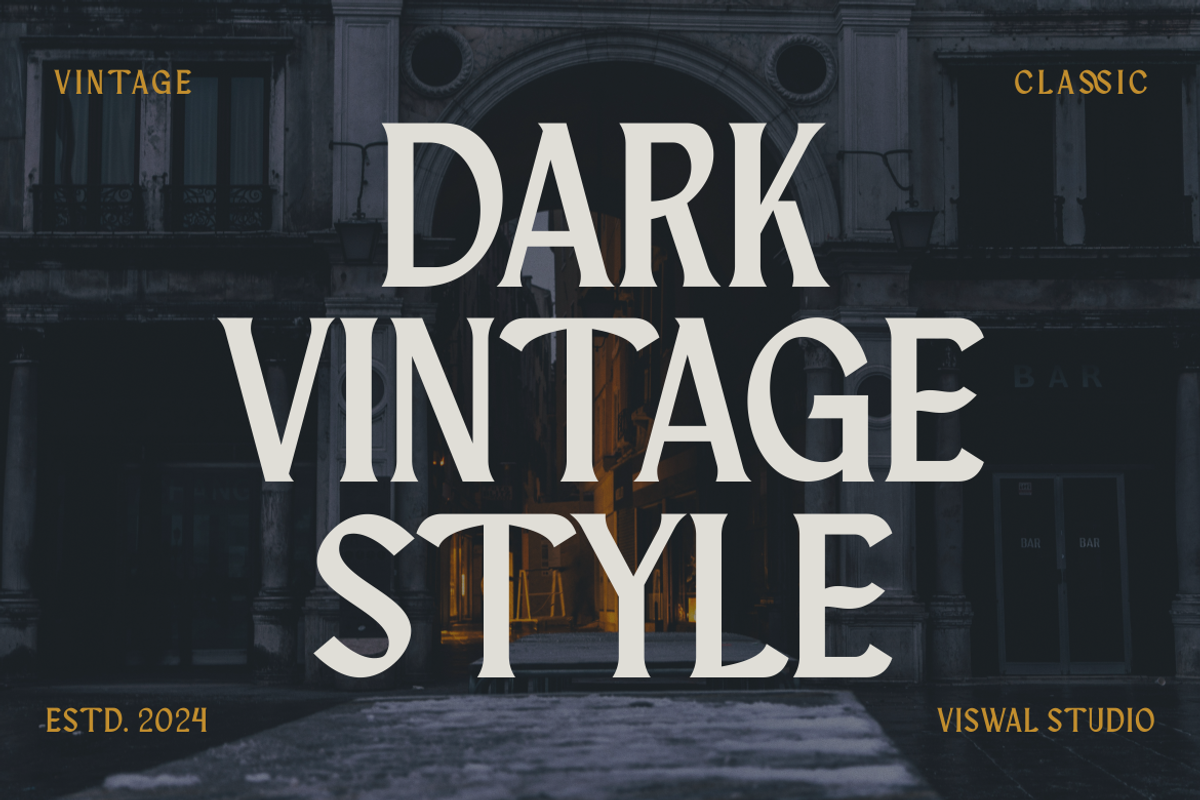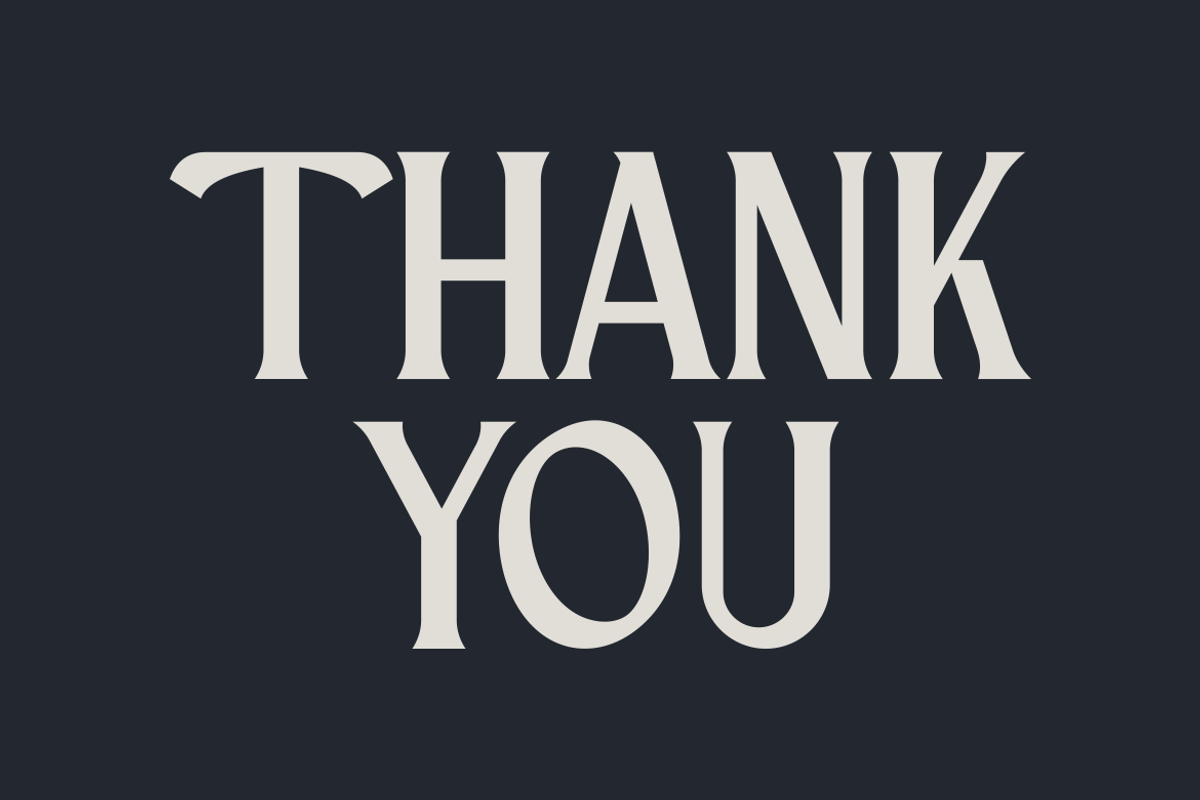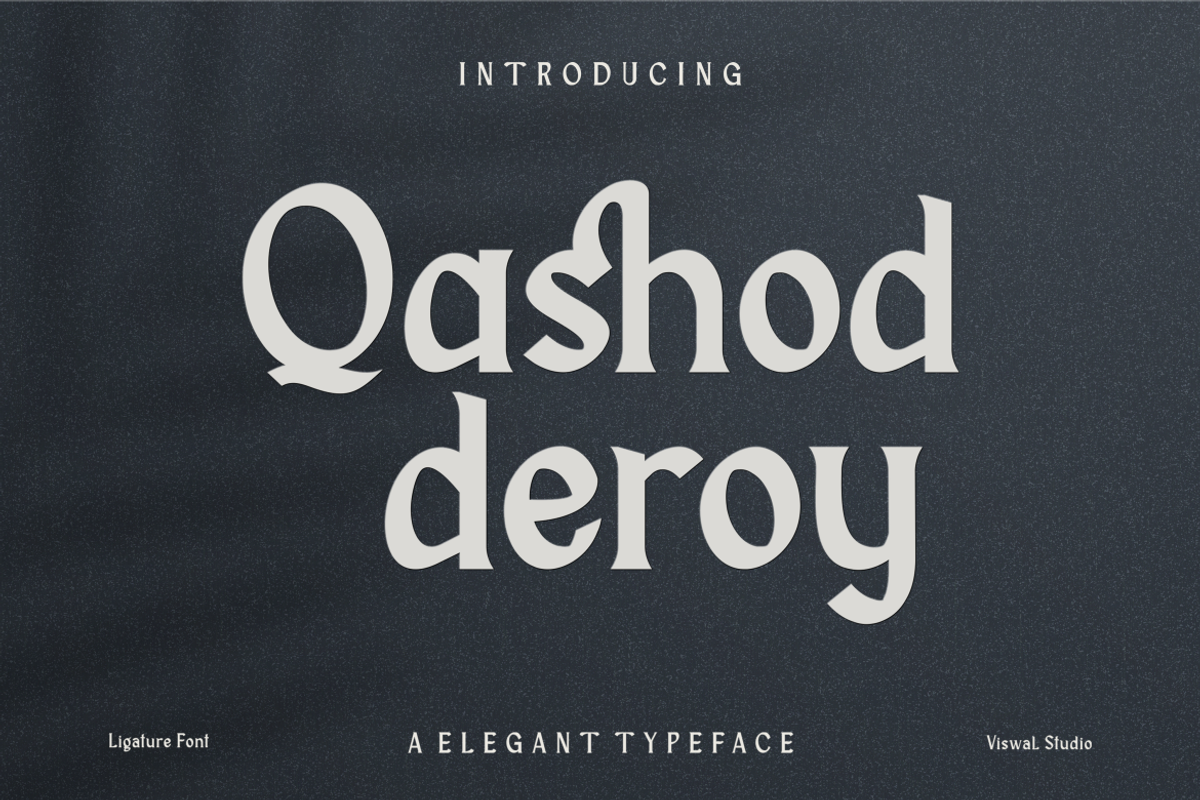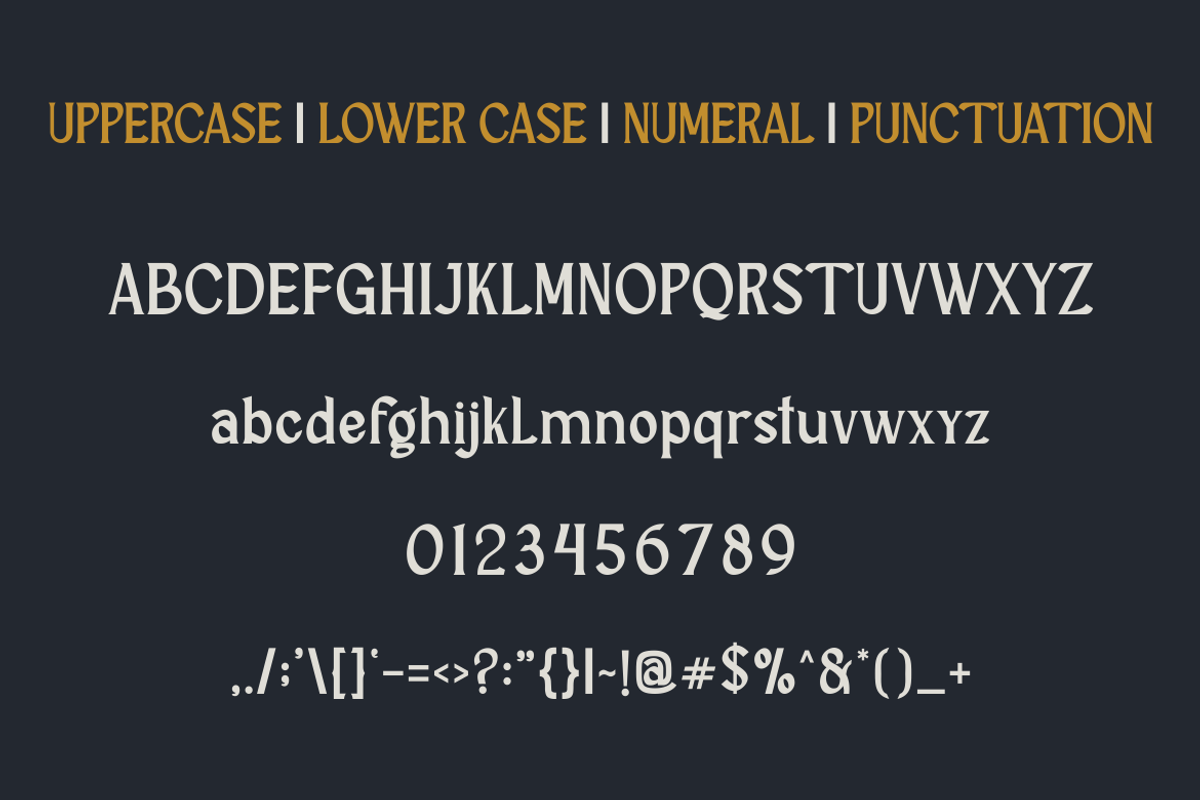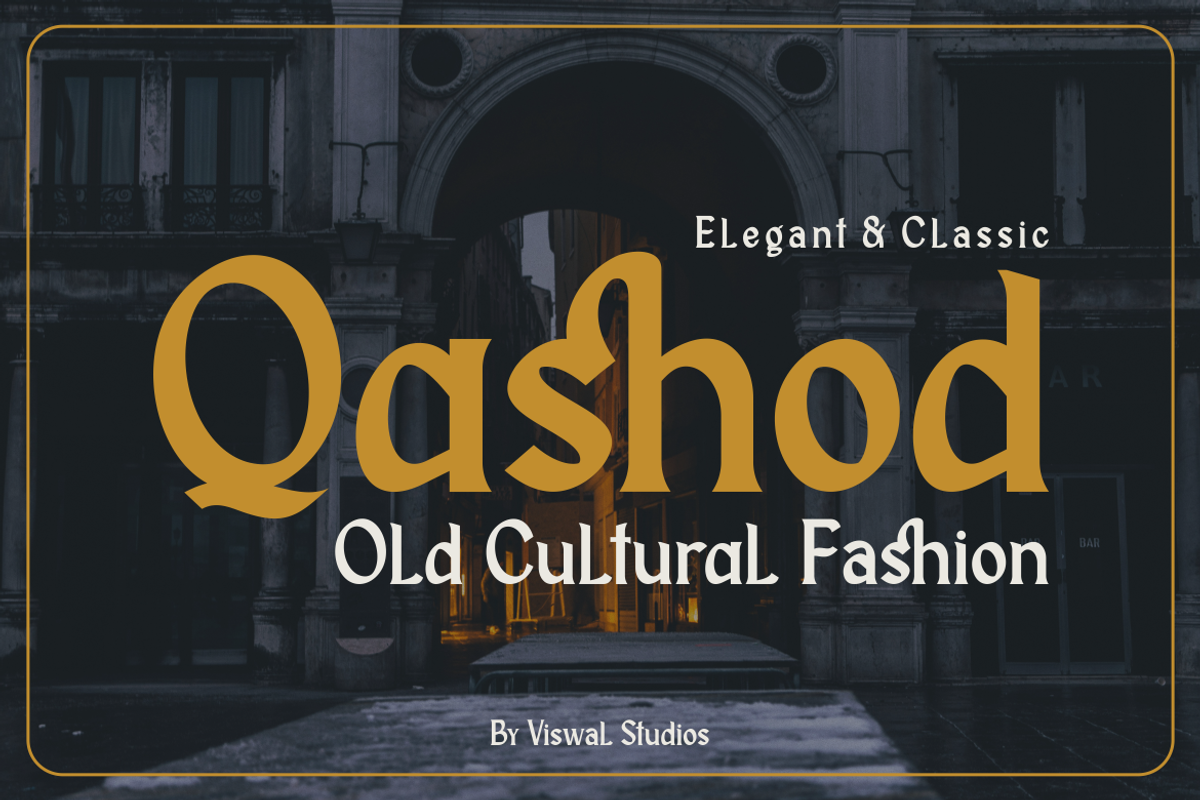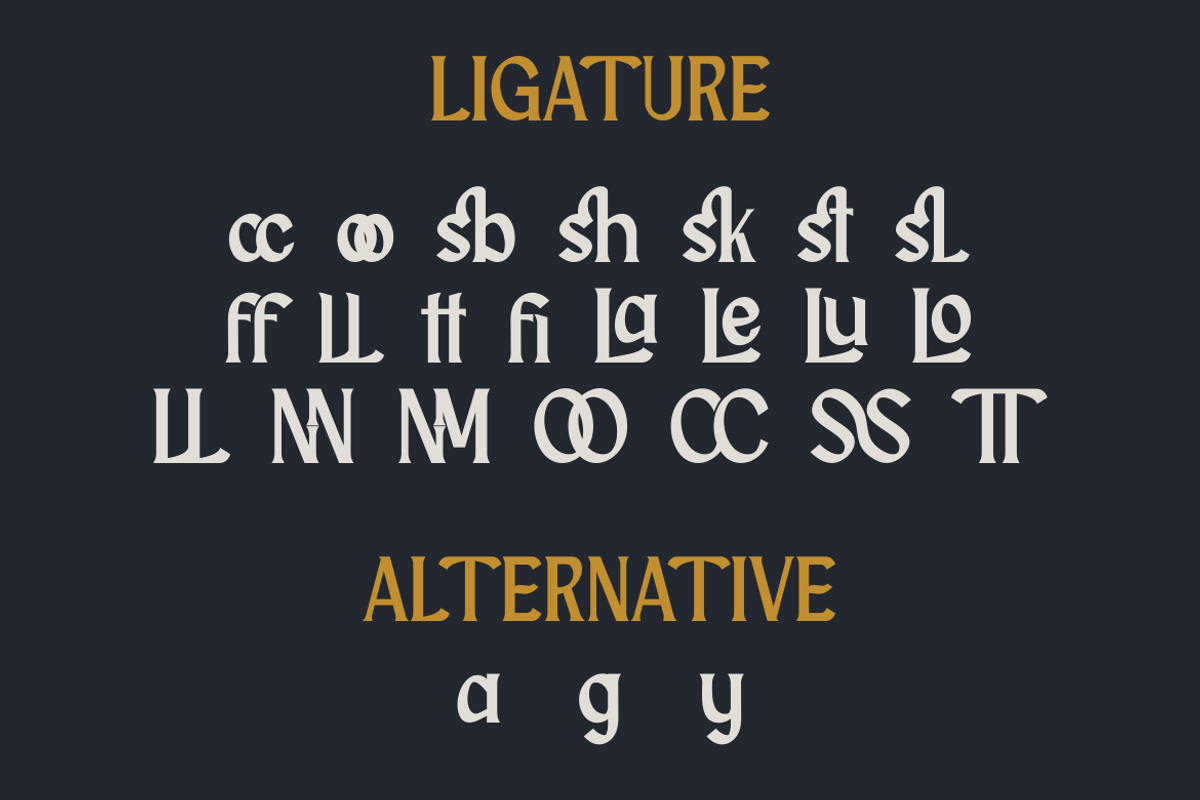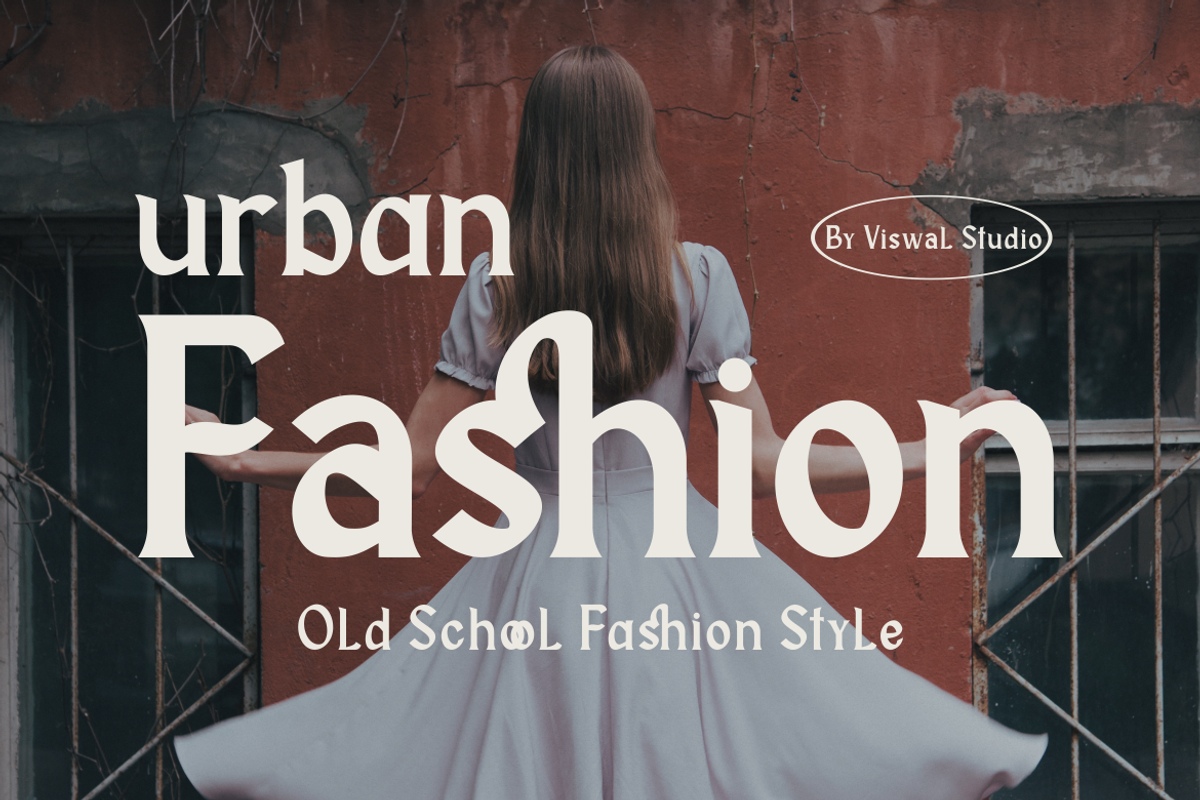
Qashod deroy - Vintage Font
Presenting Qashod deroy Is A Vintage Font.
Can Make It Easier To Convey The Message In Your Design. Font Is Suitable For Logo, Labels, Badge, Branding, Magazine, Poster, Title, Gigs, Covers And Etc. Our Fonts Have Uppercase & Lowercase, Numeral & Punctuation, And Opentype Features. For Amazing Designs You Can Mix With Other Fonts As A Complement.